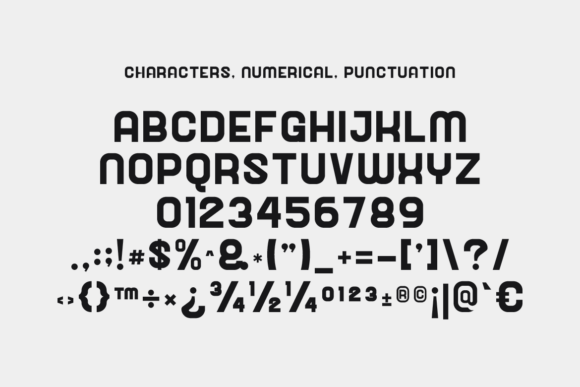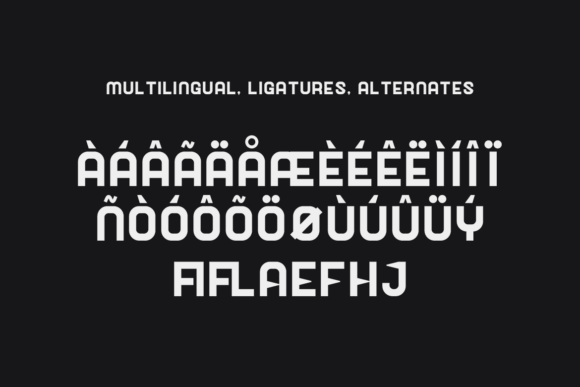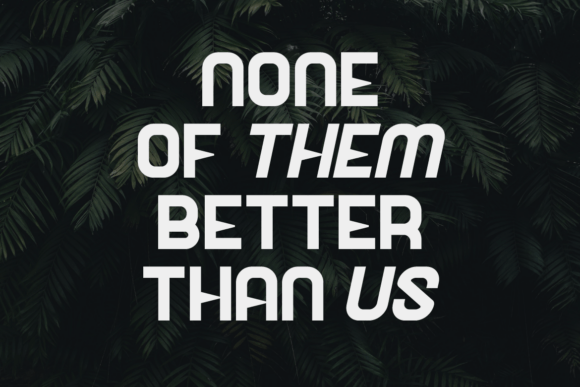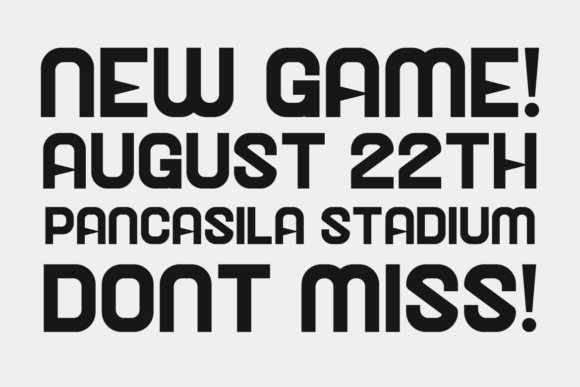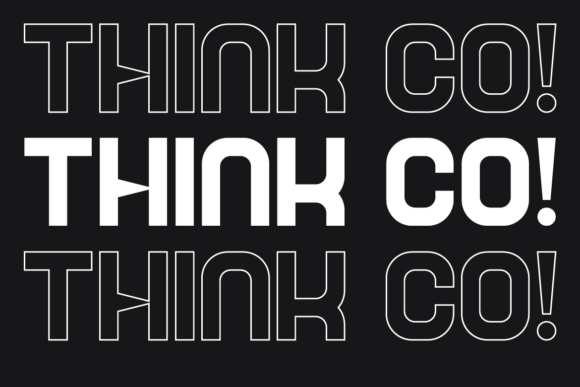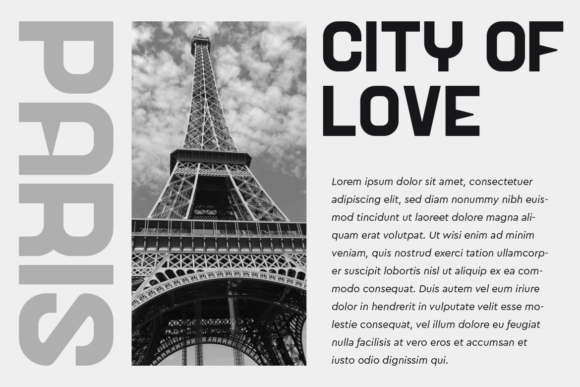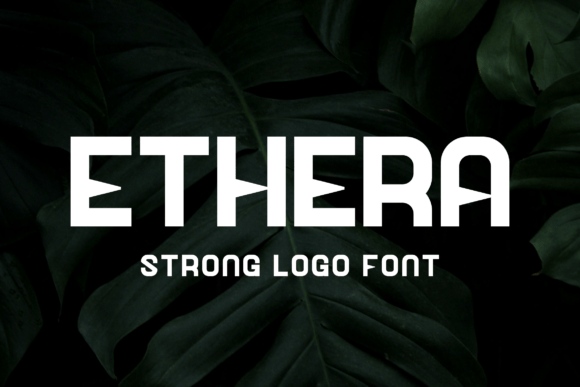
Ethera Font: The Ultimate Choice for Modern Branding and Design
In the world of typography, a font can make or break a design. With so many options available, it can be overwhelming to choose the right one. However, if you’re looking for a strong and contemporary sans serif font that can make a statement, look no further than Ethera Font. In this article, we’ll explore the features and benefits of Ethera Font, and why it’s the perfect choice for modern branding, headlines, packaging, posters, and digital content.
What is Ethera Font?
Ethera Font is a modern sans serif font designed to deliver clarity and impact. With bold letterforms, clean lines, and a structured design, Ethera is the perfect choice for designers and crafters looking to make a statement. Its strong and contemporary design makes it ideal for a wide range of applications, from branding and headlines to packaging and digital content.
Key Features of Ethera Font
So, what sets Ethera Font apart from other fonts? Here are some of its key features:
• Bold Letterforms: Ethera Font features bold letterforms that are designed to grab attention. Whether you’re using it for headlines or branding, Ethera’s bold letterforms are sure to make an impact.
• Clean Lines: The clean lines of Ethera Font give it a modern and sleek look that’s perfect for contemporary designs.
• Structured Design: Ethera Font has a structured design that gives it a sense of stability and balance. This makes it perfect for designs that require a sense of professionalism and sophistication.
Benefits of Using Ethera Font
So, why should you choose Ethera Font for your design projects? Here are some of the benefits of using Ethera Font:
• Versatility: Ethera Font is versatile and can be used for a wide range of applications, from branding and headlines to packaging and digital content.
• Legibility: The clean lines and bold letterforms of Ethera Font make it highly legible, even at small sizes.
• Uniqueness: Ethera Font has a unique design that sets it apart from other sans serif fonts. This makes it perfect for designers and crafters looking to create something truly original.
Who Can Benefit from Ethera Font?
Ethera Font is perfect for a wide range of designers and crafters, including:
• Graphic Designers: Graphic designers can use Ethera Font for branding, headlines, and packaging designs.
• Digital Designers: Digital designers can use Ethera Font for digital content, such as website headers and social media graphics.
• Crafters: Crafters can use Ethera Font for a variety of projects, from handmade cards to DIY signs.
How to Use Ethera Font
Using Ethera Font is easy. Here are some tips for getting the most out of this versatile font:
• Experiment with Different Sizes: Ethera Font is highly legible, even at small sizes. Experiment with different sizes to find the one that works best for your design.
• Pair it with Other Fonts: Ethera Font pairs well with other fonts, including serif and script fonts. Experiment with different pairings to find the one that works best for your design.
• Use it for Headlines and Branding: Ethera Font is perfect for headlines and branding. Use it to create bold and eye-catching designs that grab attention.
Font Name Ethera Font
Author Artiveko
In conclusion, Ethera Font is a strong and contemporary sans serif font that’s perfect for modern branding, headlines, packaging, posters, and digital content. With its bold letterforms, clean lines, and structured design, Ethera delivers clarity and impact that’s hard to beat. Whether you’re a graphic designer, digital designer, or crafter, Ethera Font is a versatile and unique font that’s sure to make a statement. So why wait? Try Ethera Font today and see the difference it can make in your designs.